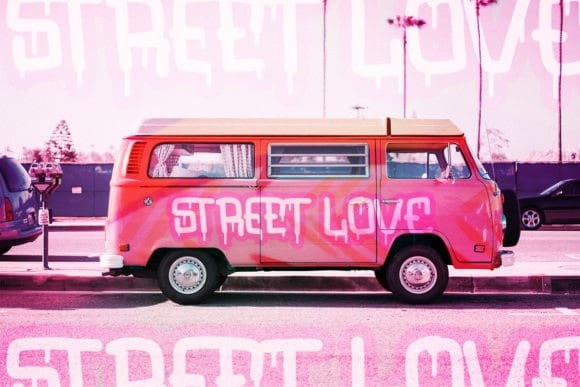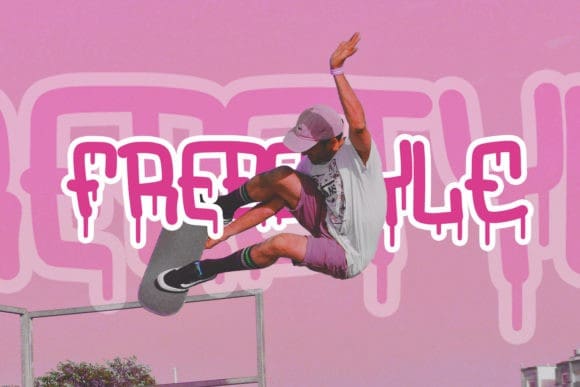
Mostbreak Display Font
Mostbreak Display Font is a dramatic, graffiti styled display font, that features a street art vibe. This font is suitable for designs like jerseys, sportswear, skateboard and more.